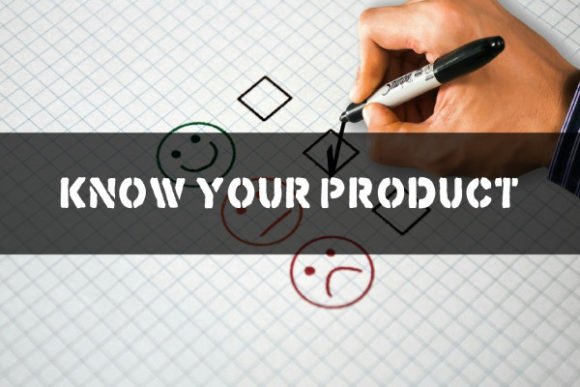
Know Your Project, Premium Display Font for Branding & Labels
Know Your Project is a creative display font designed to give text a stylish, attention‑grabbing look. Its letterforms are crafted to stand out in large‑size use — making it perfect for posters, signage, logos, packaging, or any design where typography needs bold impact. As a digital font file, it plugs directly into design workflows for web, print, craft, or merchandise use.
This font file is ideal for graphic designers, crafters, print‑on‑demand entrepreneurs, and small business owners looking for a distinct, expressive font for creative projects.
- Graphic designers creating logos, branding, posters, flyers, banners, or signage
- Crafters using cutting or design machines (Cricut, Silhouette, etc.) for vinyl decals, paper crafts, signage, or labels
- Print‑on‑demand or merchandise sellers designing t‑shirts, mugs, tote bags, posters, stickers — especially where bold typography is desired
- Small businesses or creatives needing distinctive typography for packaging, marketing materials, social media graphics, or digital products
- Logos and brand identity visuals with strong typography
- Posters, flyers, banners, invitations — ideal for headings and display text
- Merchandise & POD items — apparel, mugs, tote bags, stickers, packaging labels
- Social‑media banners, ads, digital marketing graphics needing standout text
- Cut‑file and craft projects — vinyl decals, signage, paper‑cut designs, packaging mockups, product labels
- Bold, eye‑catching display style — excellent for titles, branding, and merchandising
- Versatile — works across print, digital, merchandise, and craft‑based projects
- Great as a standalone display font or paired with simpler fonts for balanced design layouts
| Feature | Know Your Project | Generic Display Font A | Generic Sans‑Serif Font B |
| Style / Feel | Bold, creative display / headline font | Neutral sans‑serif or serif — minimal design feel | Simple sans‑serif — good for body text and general use |
| Best Use | Posters, merchandise, branding, signage, bold headlines | Body text, clean layouts, minimal design needs | Body text, clean projects, web use, general layouts |
| Visual Impact | High — standout typography for display or merch | Low — subtle and minimal, not eye‑catching for headlines | Medium — balanced readability, less impact for large display use |
| Versatility | High — suitable for design, print, POD, crafts, web headers | Medium — best for simple clean text or layouts | High — good for body copy and general use, but less ideal for display impact |